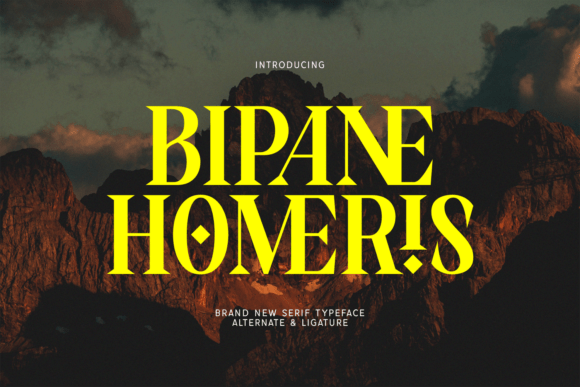
Introducing Bipane Homeris: The Bold and Adventurous Serif Typeface
I’ll never forget the design struggle I faced while working on a branding project for a travel company. I was searching for a font that could convey a sense of adventure, boldness, and elegance. After hours of browsing through font libraries, I stumbled upon a font that caught my attention – Bipane Homeris. In this article, I’ll share my experience with this brand new serif typeface, its features, and how to make the most of it.
A Personal Encounter with Bipane Homeris
I was immediately drawn to Bipane Homeris because of its bold and adventurous character. The font’s design emphasizes strength, confidence, and a sense of exploration, making it perfect for travel, outdoor, or lifestyle brands. As I began to experiment with it, I discovered its versatile features, including alternate and ligature options, which allowed me to create unique and engaging visual content.
What I Love About Bipane Homeris ✨
• ✅ Bold and adventurous character: Bipane Homeris exudes confidence and strength, making it perfect for headlines and titles.
• ✅ Alternate and ligature options: The font’s OpenType features allow for versatile use and creative experimentation.
• ✅ Elegant serif design: The font’s classic serif style adds a touch of sophistication and elegance to any design.
• ⚠️ Limited use in body text: While Bipane Homeris is perfect for headlines, it may not be the best choice for body text due to its bold character.
• ⚠️ Some characters may require adjustment: Depending on the design, some characters may require manual adjustment to ensure optimal spacing and alignment.
Bipane Homeris was designed with the intention of creating a bold and adventurous serif typeface that could evoke a sense of exploration and confidence. The designer’s inspiration came from classic serif fonts, combined with a modern twist to create a unique and versatile font. The goal was to create a font that could be used in a variety of contexts, from travel and outdoor branding to luxury and lifestyle designs.
Q: What is Bipane Homeris?
A: Bipane Homeris is a brand new serif typeface designed to convey a sense of boldness and adventure.
Q: What are the key features of Bipane Homeris?
A: Bipane Homeris features a bold and elegant serif design, alternate and ligature options, and a range of OpenType features.
Q: Can I use Bipane Homeris for body text?
A: While Bipane Homeris is perfect for headlines and titles, it may not be the best choice for body text due to its bold character.
Q: Is Bipane Homeris suitable for digital use?
A: Yes, Bipane Homeris is designed to be versatile and can be used in a variety of digital contexts, from social media graphics to website designs.